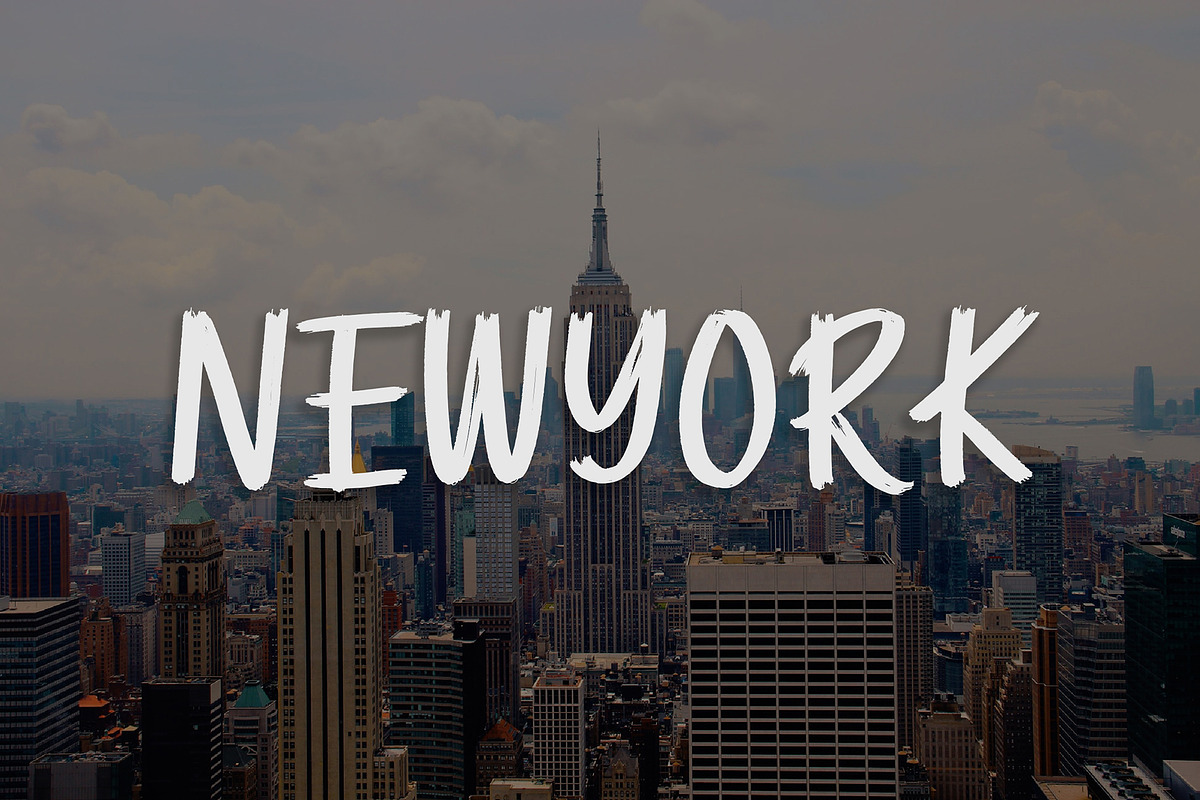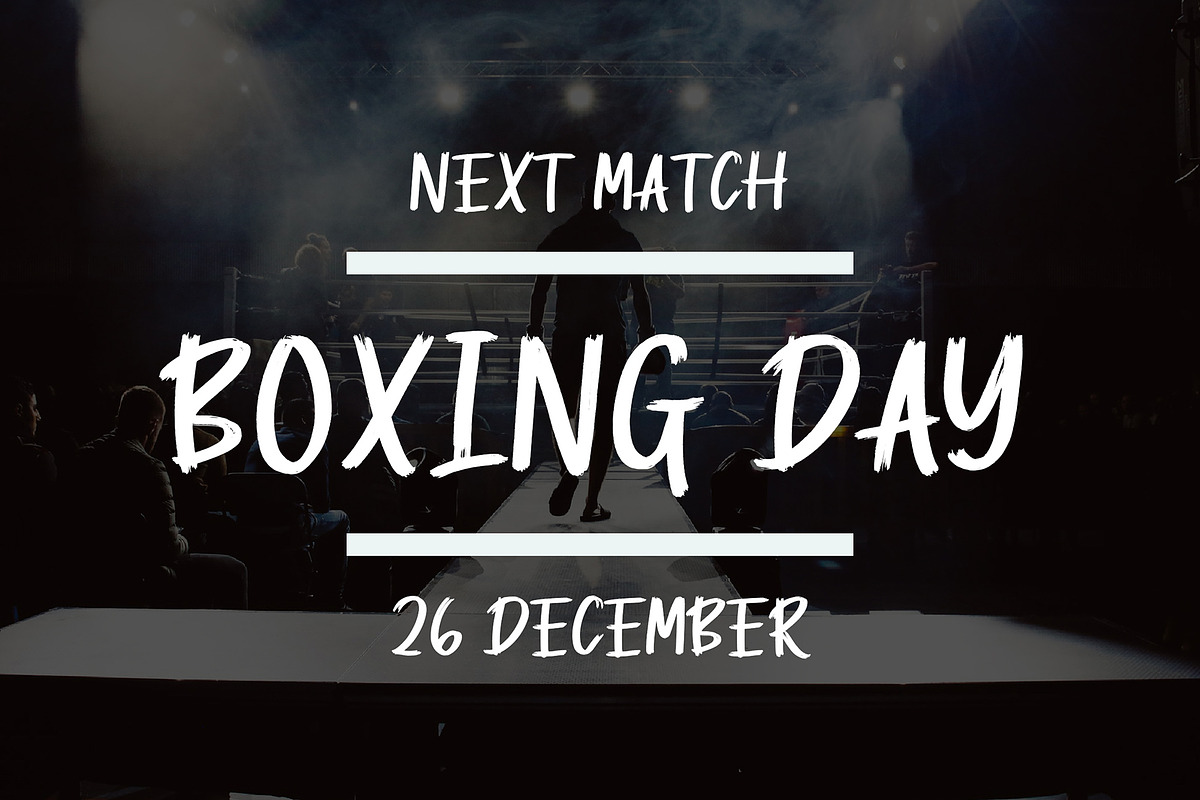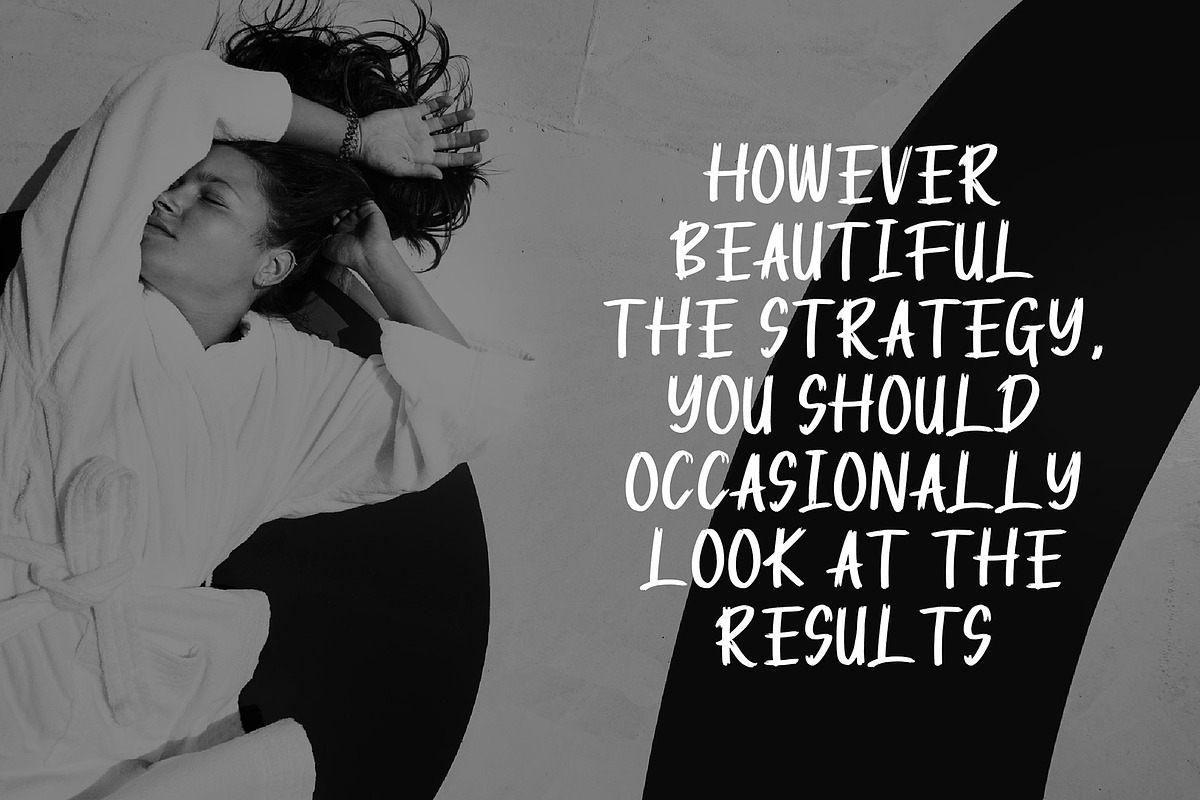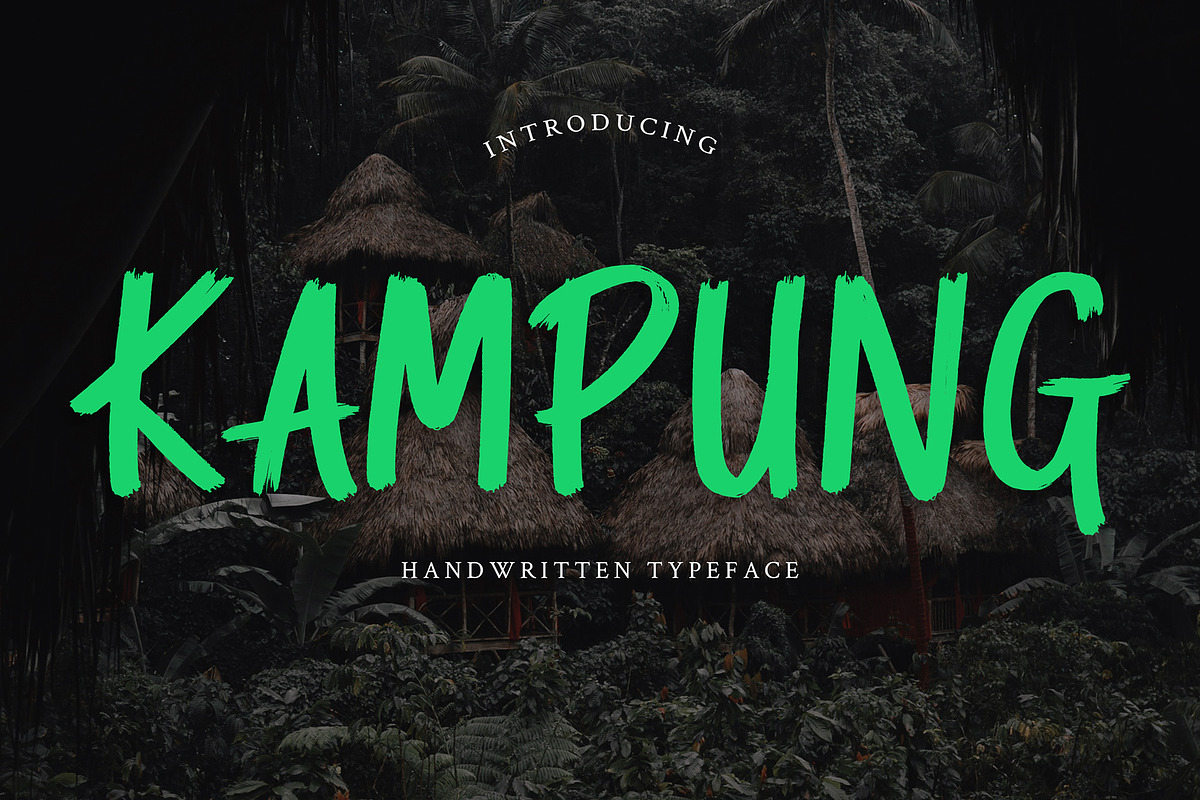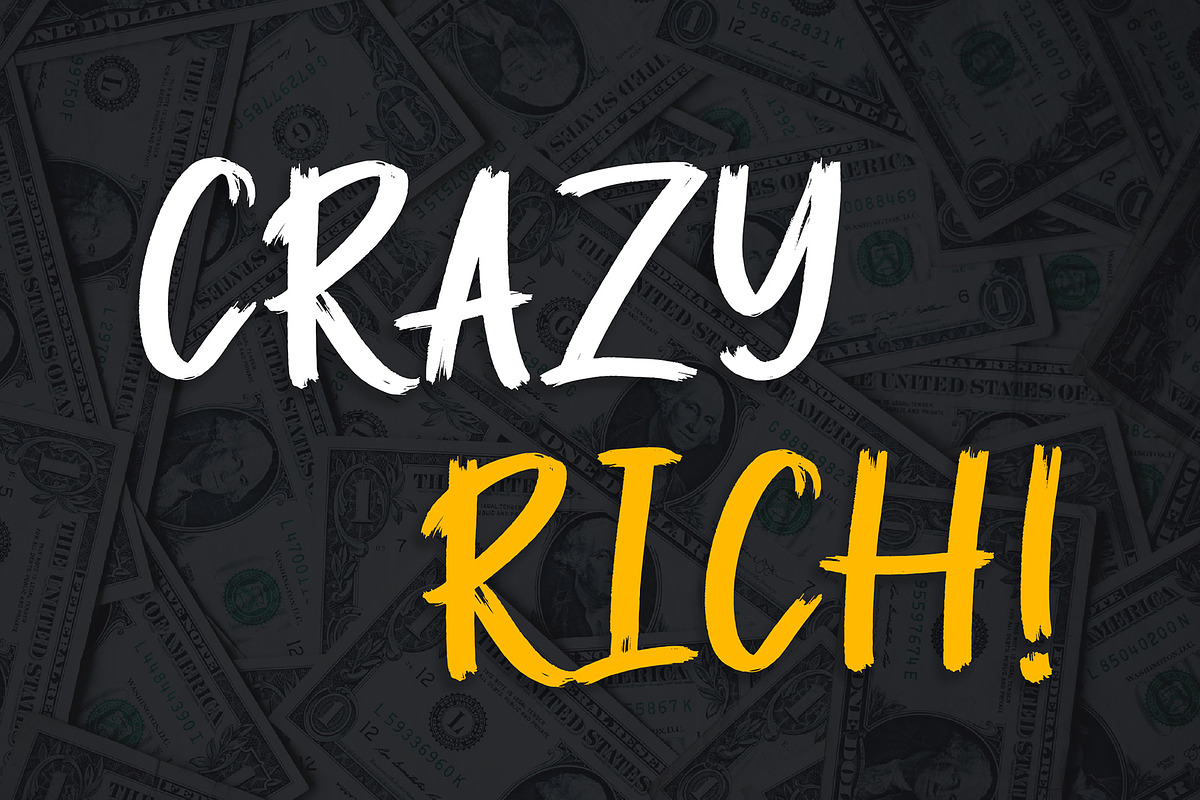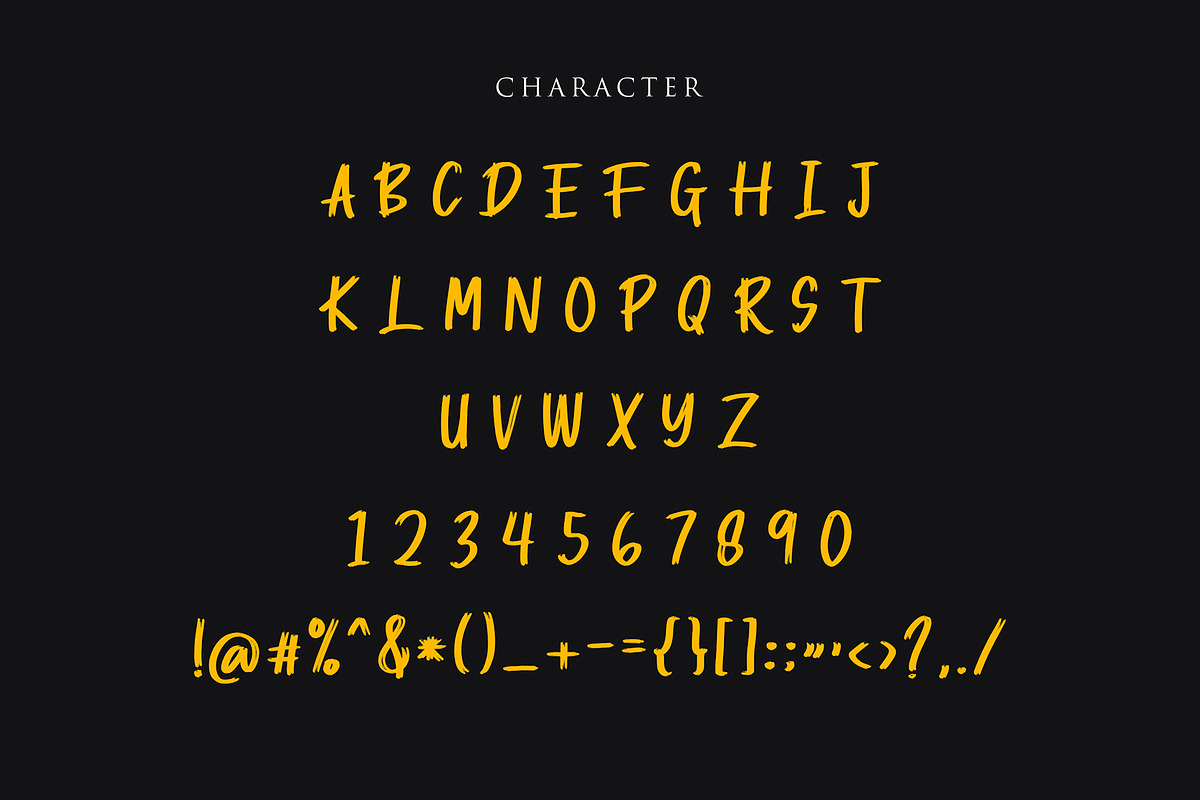
Kampung Brush Handwritten Font
Kampung is brush handwritten font. This font perfect for branding projects, logo, book cover design, tshirt designs, social media posts, advertisements, product packaging, product designs, label, watermark, invitation, stationery and any projects
Why Kampung Brush Handwritten Font is worth a look
Kampung Brush Handwritten Font by Formatika Studio fits naturally into Branding, posters, packaging, typography.